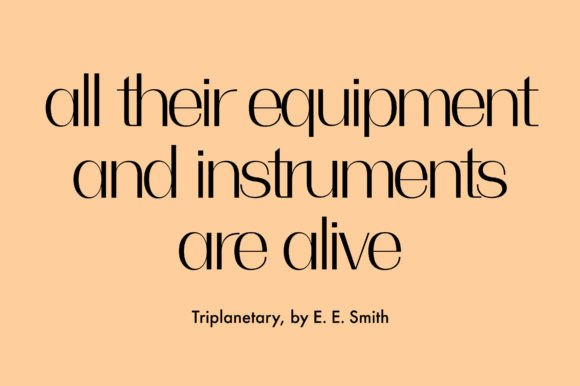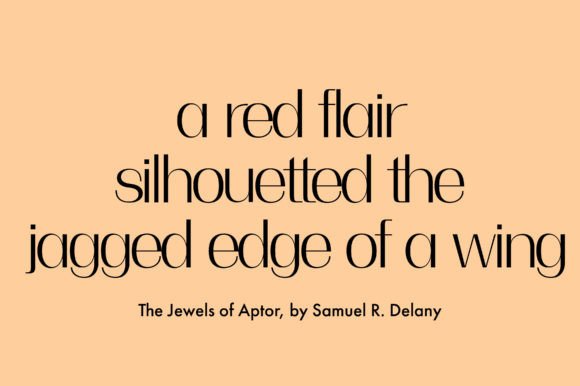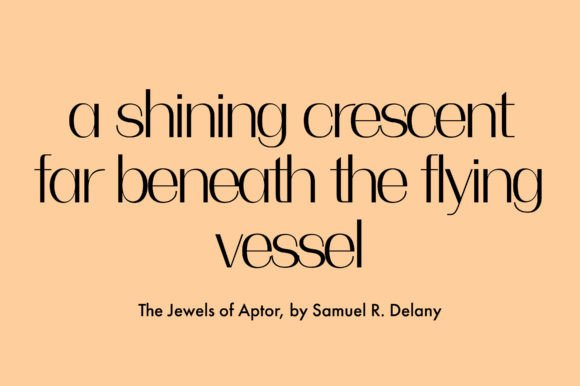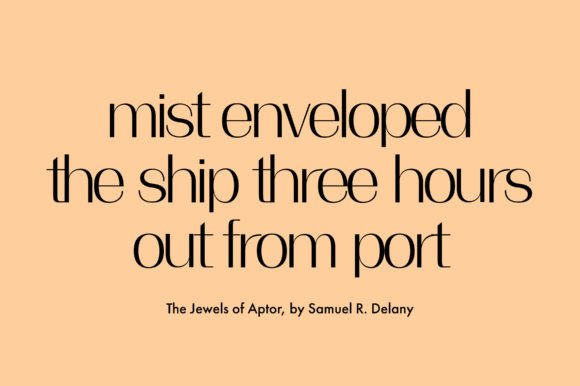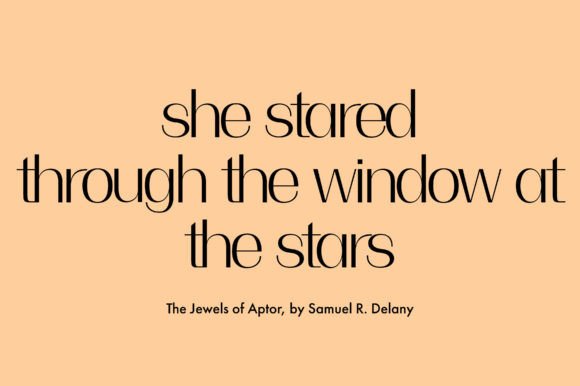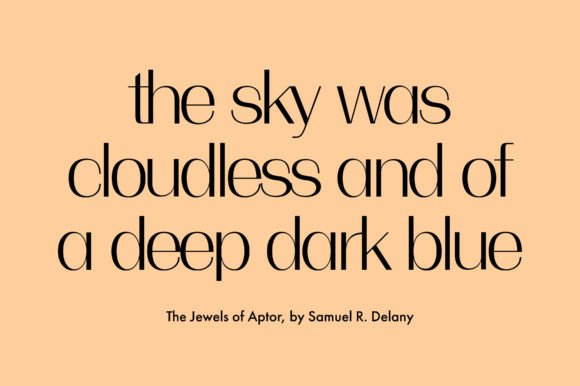
Discovering the Perfect Font for Captivating Designs
Have you ever stared at a blank page, struggling to find the perfect font to bring your design to life? It’s a familiar frustration for many creatives. But what if I told you that there’s a font that can elevate your designs with ease? Say hello to the Anauma Font, a minimalist and elegant sans serif typeface that’s about to become your new go-to.
With over 620 glyphs and multilingual support, the Anauma Font is perfect for creating captivating designs that speak to your audience. Whether you’re working on a logo, headline, or editorial layout, this versatile font is sure to impress. What makes it truly valuable for designers is its ability to balance simplicity with sophistication, making it an ideal choice for a wide range of projects.
Anauma Font Key Features
- Unique Characteristics: This font features a unique, modern design with a blend of geometric and organic elements, making it perfect for creating visually striking designs.
- Language Support: Anauma Font supports a wide range of languages, including Latin-based languages, Cyrillic, and Greek.
- Font Style: The font comes in a single style, but it’s highly versatile and can be used in various contexts, from body text to headings and titles.
Designer Review: Anauma Font
Overall, I think the Anauma font has some great qualities that make it a solid addition to any designer’s toolkit. Here are a few things that really work well: ✨
- Unique style: Anauma font has a distinctive, hand-drawn feel that sets it apart from more generic sans-serif fonts.
- Wide range of weights: The font comes in a variety of weights, from light to bold, making it easy to find the perfect fit for your design.
- Good legibility: Despite its unique style, Anauma font is still very easy to read, even at smaller sizes.
- Not suitable for body text: While Anauma font works well for headings and titles, it may not be the best choice for large blocks of body text due to its high x-height and relatively wide letter spacing.
- Limited language support: Anauma font may not support all languages, which could be a problem if you need to design for a global audience.
Overall, I think Anauma font is a great choice for designers who want to add a touch of personality to their designs. Just be aware of its limitations and use it judiciously.
Anauma Font is ideal for creating eye-catching headings and titles. It’s also great for adding a touch of elegance to your designs, making it perfect for wedding invitations, branding materials, and more.